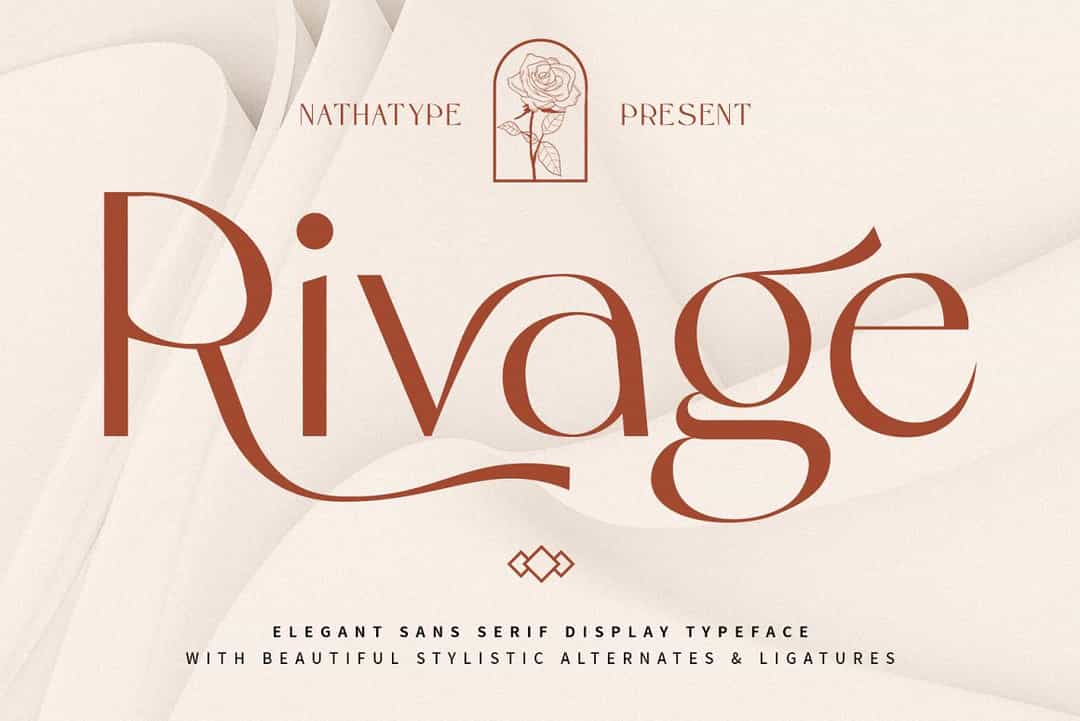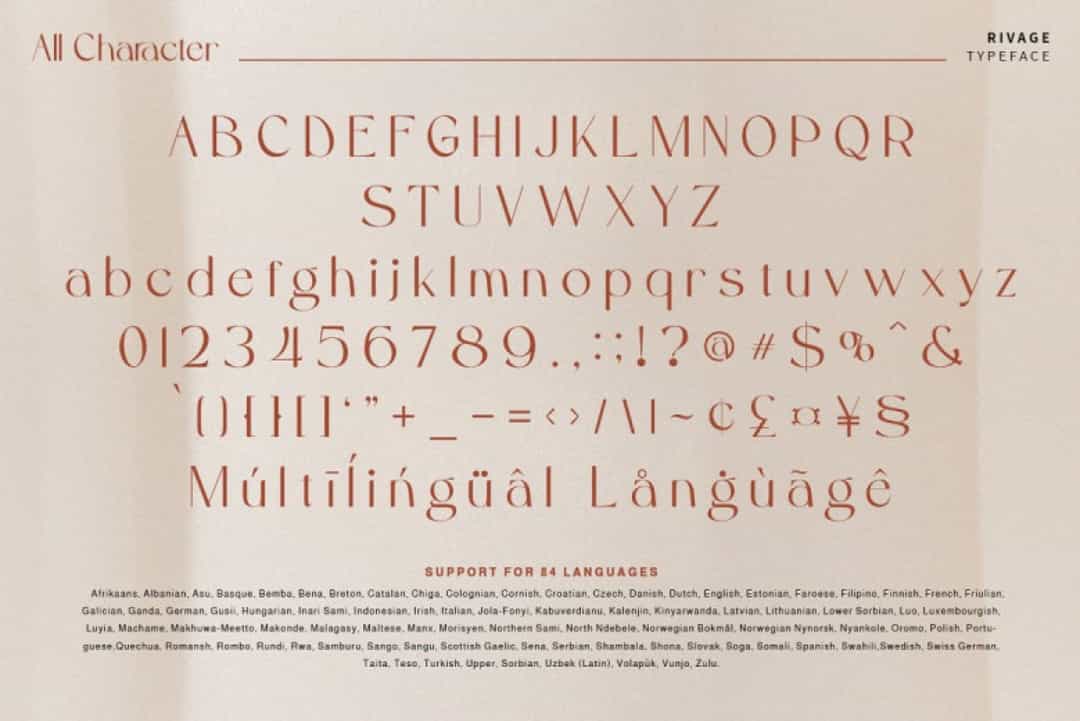
Rivage is an elegant sans serif font. This font is quite enigmatic, in that its geometric but also has an open curves. The result is a font that looks friendly and professional at the same time. Also, Rivage is versatile enough to be used on tittle or body text.